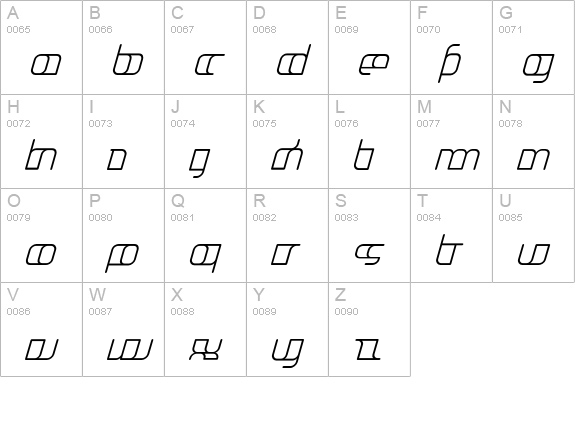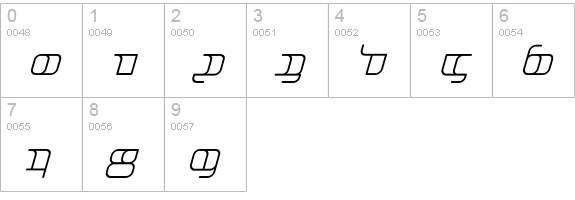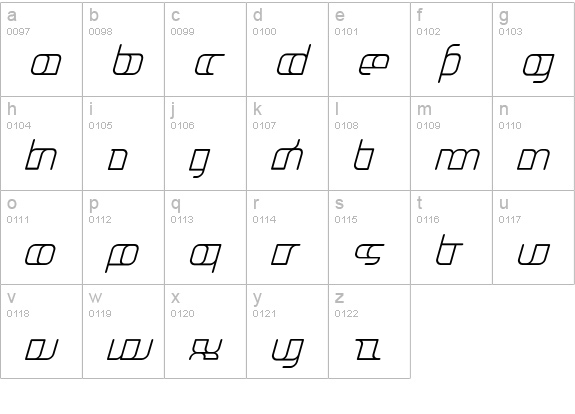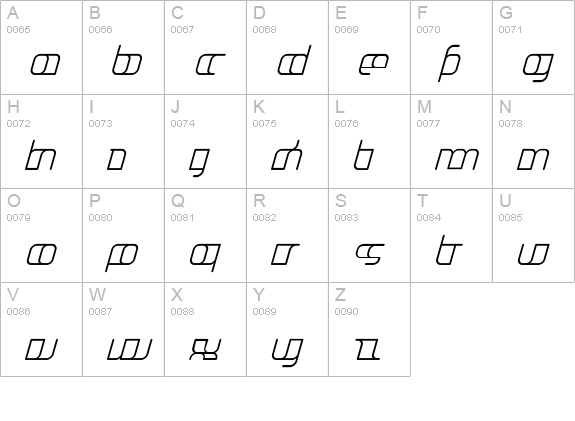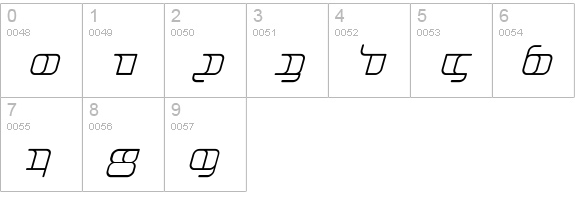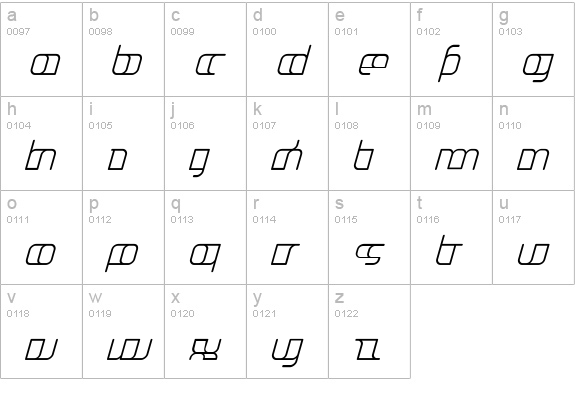
Jakone-ExtendedItalic is a stylish and elegant font that captures the essence of modernity and sophistication. With its sleek and slender design, this font exudes a sense of professional charm and versatility. It is the perfect choice for projects that require a touch of finesse and elegance. The unique italicized variation of Jakone-ExtendedItalic adds a sense of dynamism and flair to any design. Whether used for headings, titles, or body text, this font effortlessly enhances the visual appeal of any project it is applied to. Its elongated letterforms create a sense of movement and flow, making it particularly suitable for projects that require a sense of energy and motion. What makes Jakone-ExtendedItalic even more special is that it is available for free download at FontsMarket.com. This means that you can enjoy the premium quality and refined aesthetics of this font without any cost. It is a rare gem in the world of typography, as high-quality fonts of this caliber are often associated with a hefty price tag. The freely available Jakone-ExtendedItalic font allows designers, creatives, and enthusiasts alike to have access to a professional-grade font that elevates their projects to new heights. Whether you are working on branding materials, advertisements, websites, or any other design endeavor, this font is sure to make a lasting impression. So, why not take advantage of this incredible opportunity and download Jakone-ExtendedItalic from FontsMarket.com today? Experience the beauty and versatility of this font and unlock a world of design possibilities. With Jakone-ExtendedItalic, you can confidently create stunning visuals that leave a lasting impact.